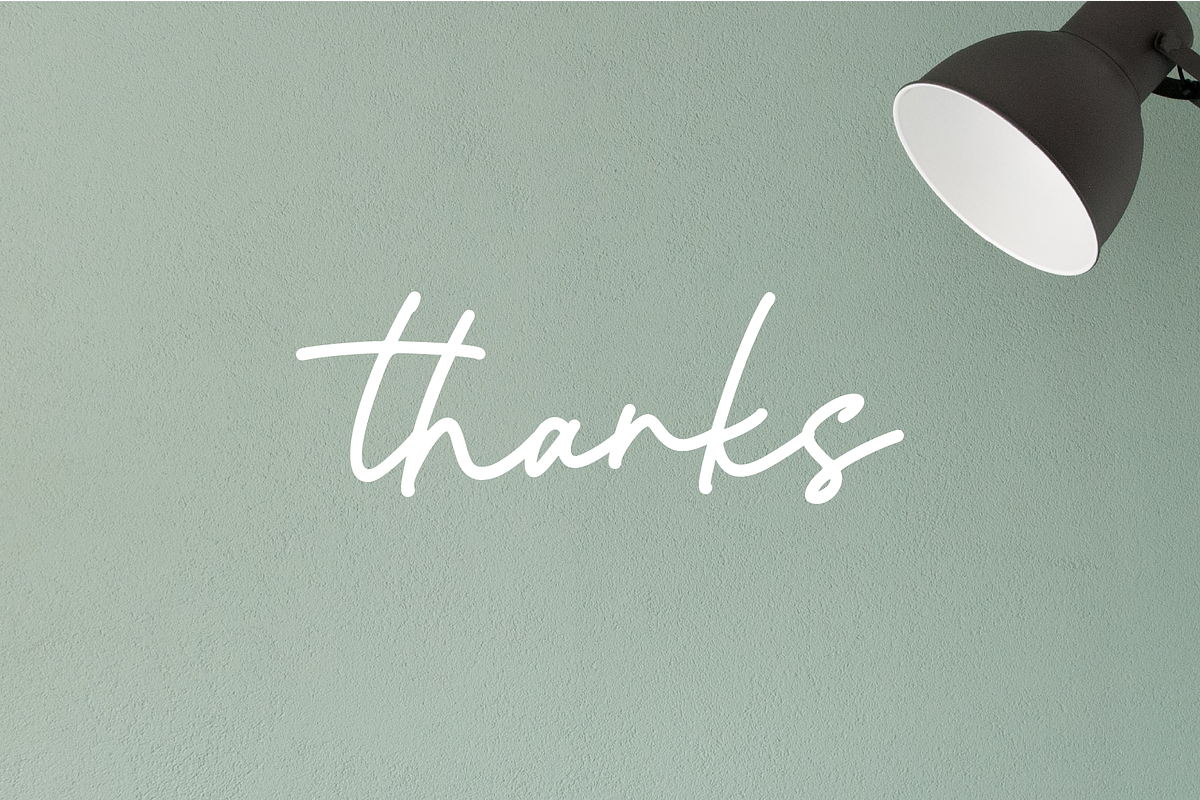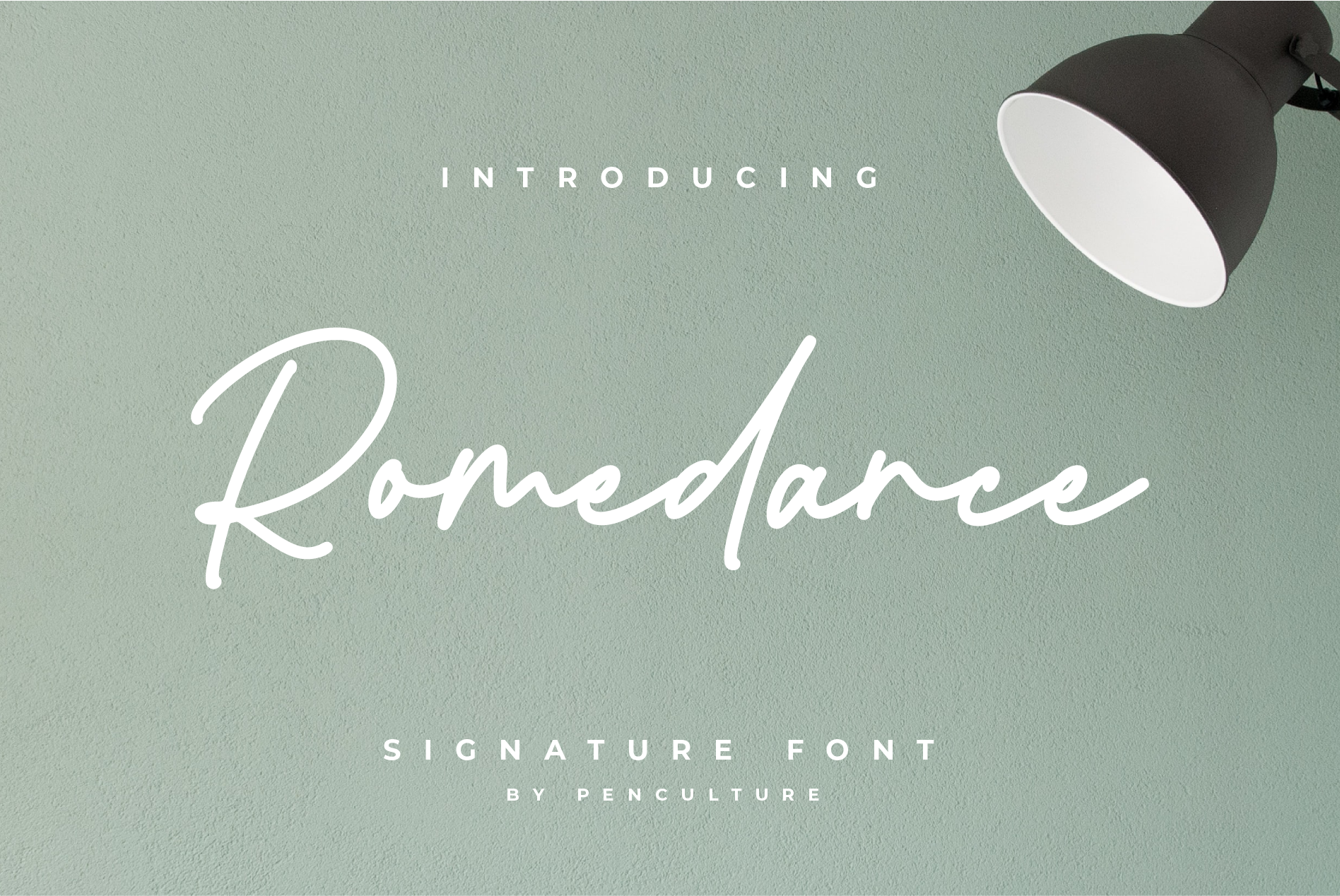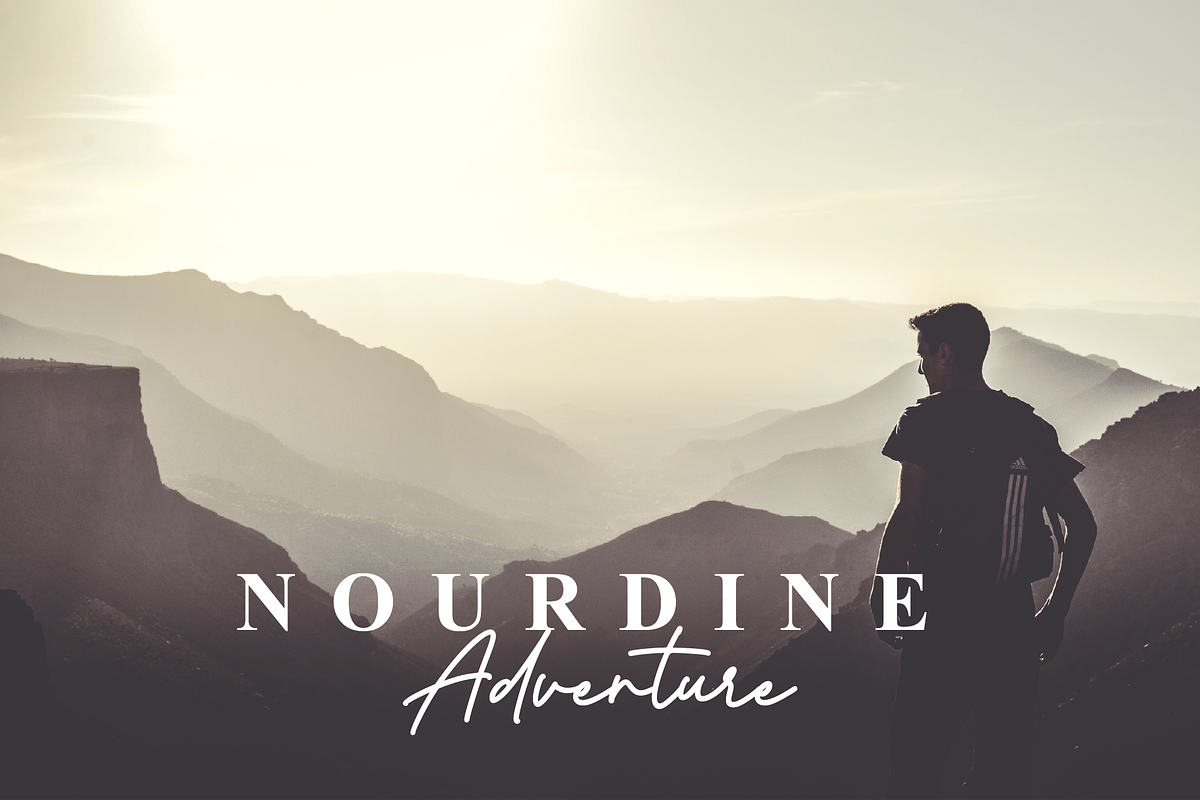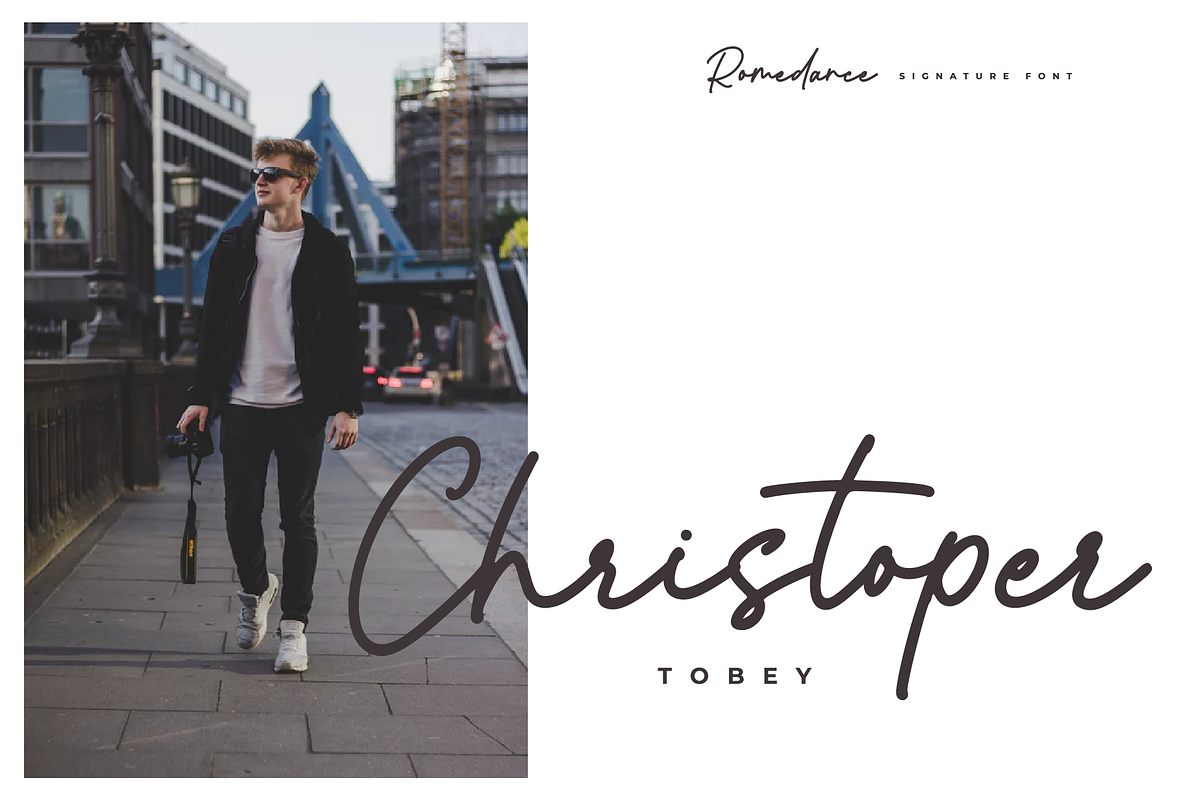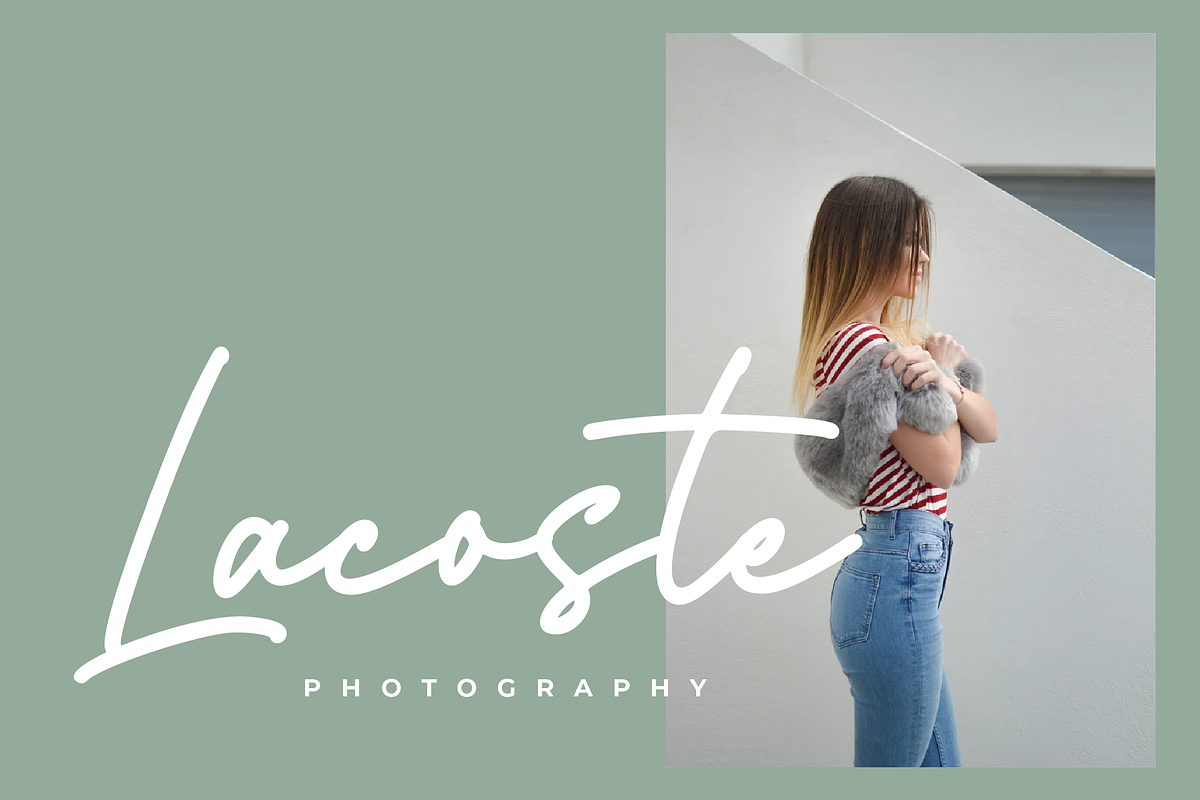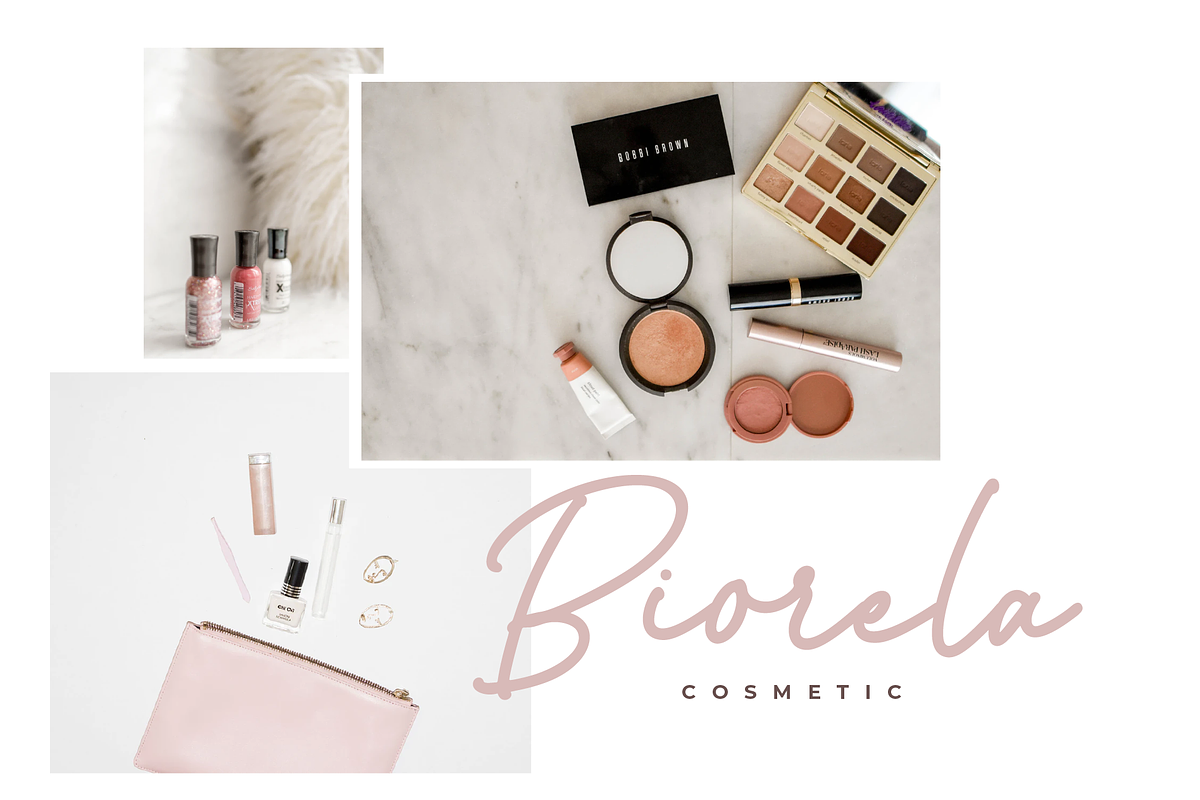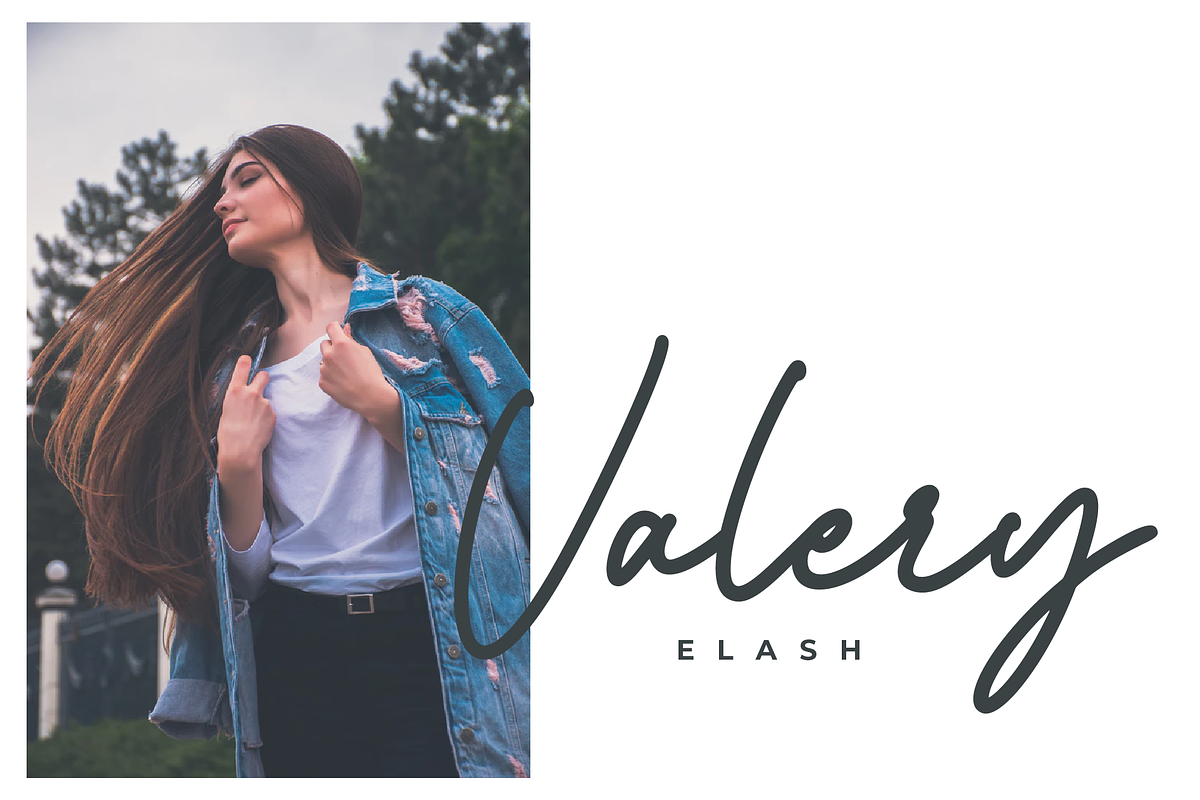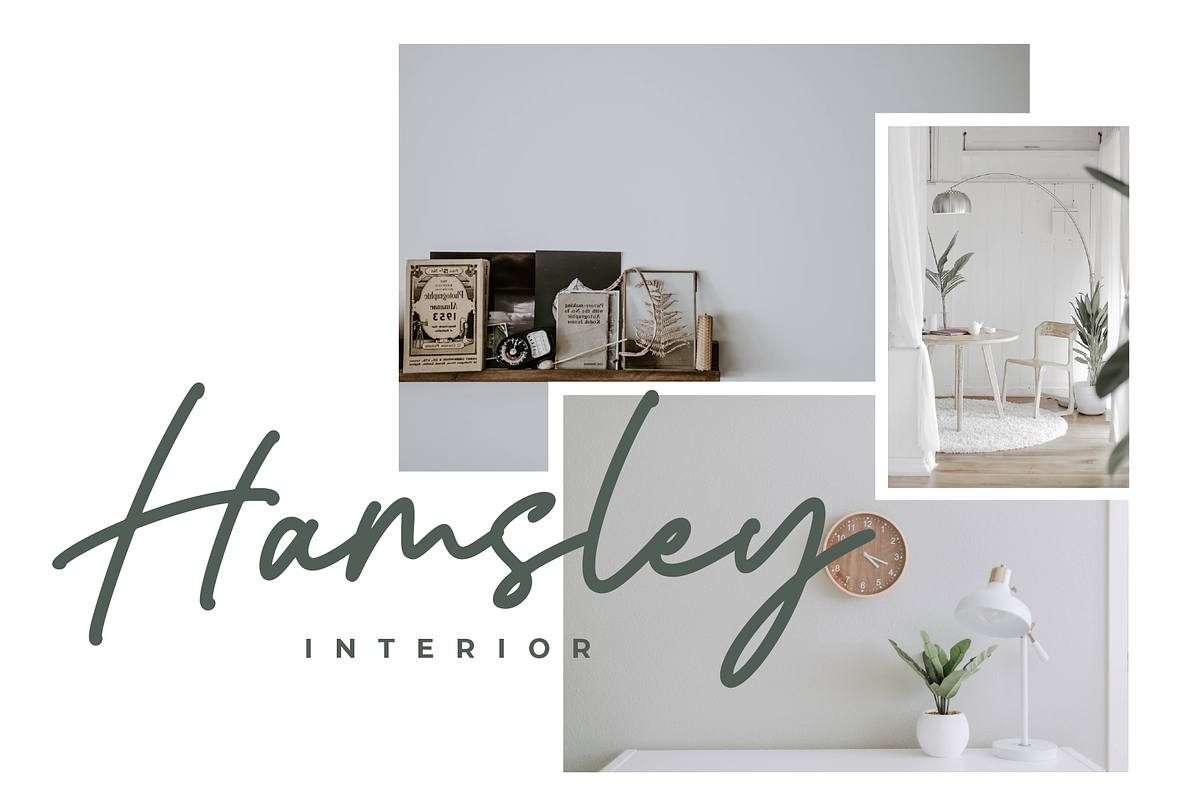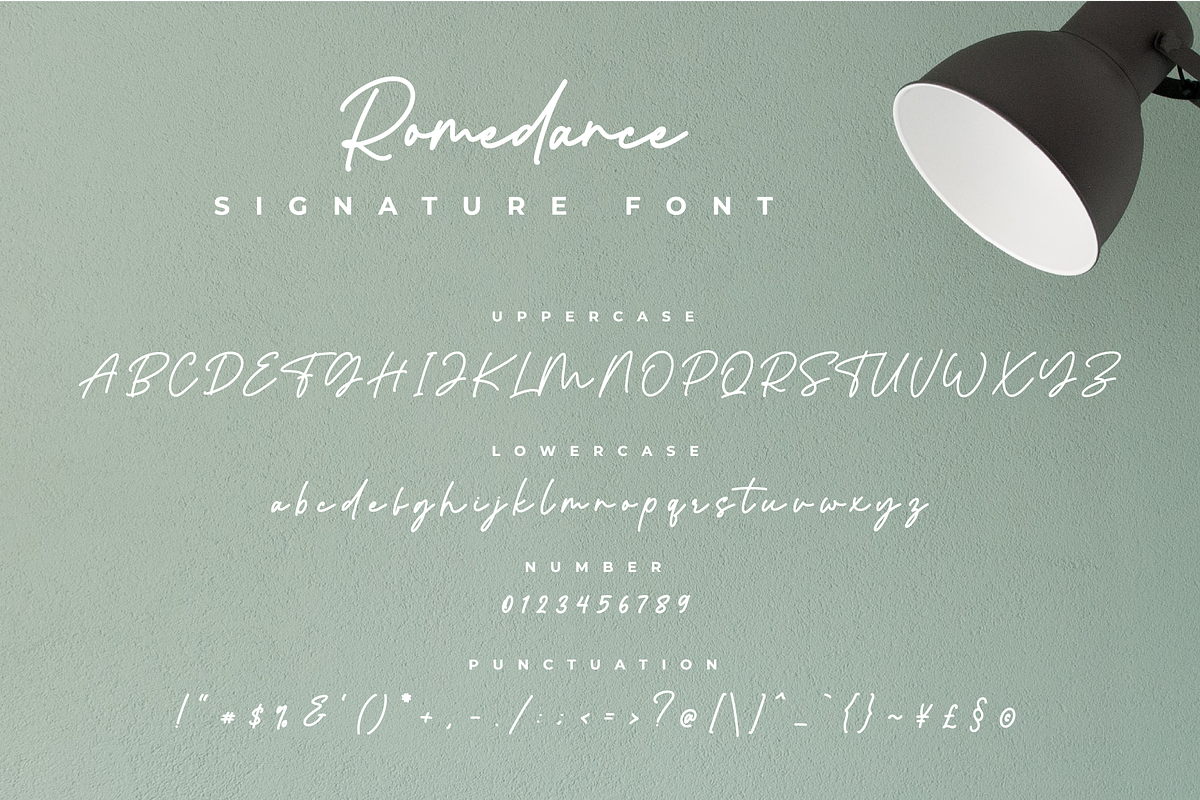
Romedance Signature Font
Please welcome our newest font Romedance. an Elegant signature with a beautiful alternate that you can easily combine. it's clean and elegant for logos, brand, wedding invitations, quotes, advertisements, and more. Romedance is equipped with beautiful caps, punctuation, number. this font is also multilingual language.